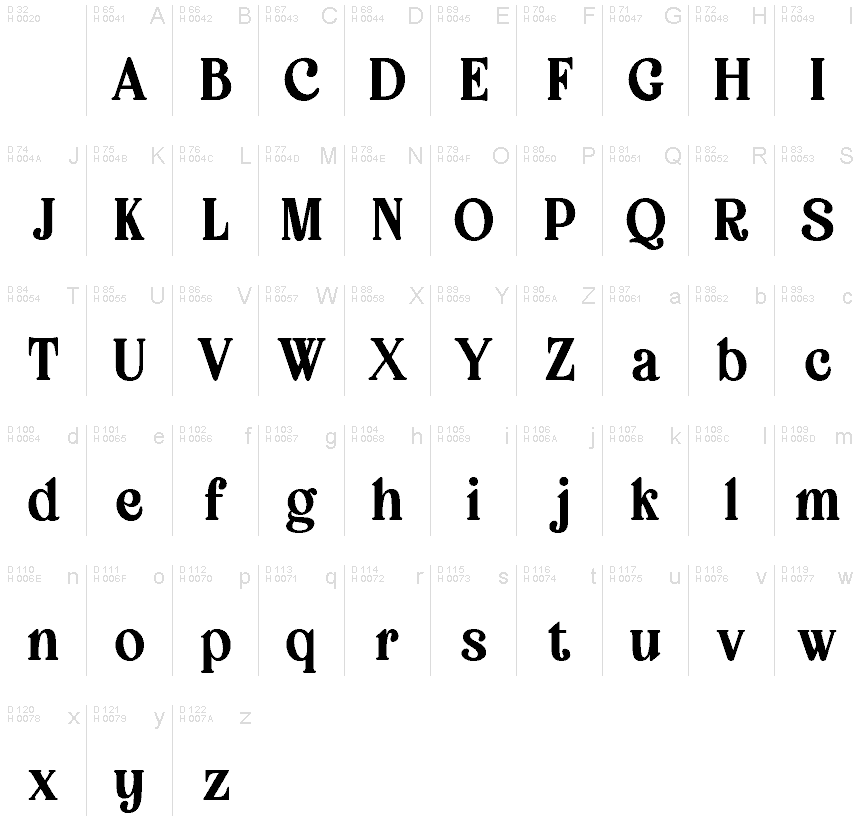
Guavine Demo Regular
Guavine font by Craft Supply Co is a vintage-inspired bold serif with an expressive and charismatic personality. Its elegant design combines classic influences with a fresh and distinct look, making it both timeless and contemporary.